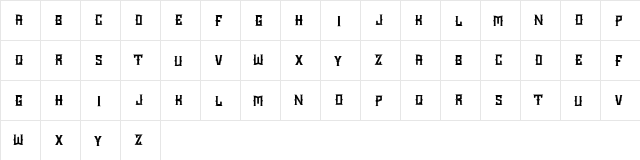
Chopper City Regular
| Foundry | GKDN Web and Social Imaging Chrisvile.com |
| Designer | Chris Vile |
Design Context for Chopper City Typeface
Chopper City is a composed and adaptable typeface that performs quietly and consistently across a wide range of design contexts.